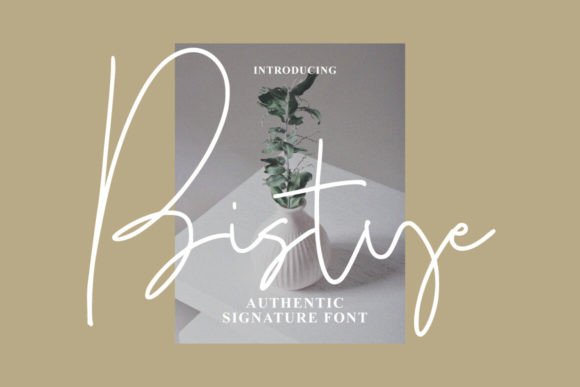
The Bistye Font: A Handmade Signature Style for Your Creative Projects
Have you ever worked on a design project, only to find yourself stuck on the perfect font? I recall a particularly frustrating experience while designing a wedding invitation suite. My client wanted a font that exuded elegance, whimsy, and a touch of handmade charm. After scouring the internet, I stumbled upon the Bistye font, and it instantly became the star of the show. In this article, we’ll dive into the world of Bistye, exploring its unique features, and how to make the most of this beautiful font.
A Personal Review: What I Love About Bistye
So, what makes Bistye so special? Here are a few things that caught my attention:
- ✨ Unique handmade signature style: Bistye boasts a one-of-a-kind, handcrafted feel that’s perfect for adding a personal touch to your designs.
- ✅ Decorative characters: The font comes with a range of decorative characters, including swashes, flourishes, and stylistic alternates.
- 💃 Dancing baseline: Bistye’s baseline has a lovely, organic feel, giving your text a sense of movement and energy.
While Bistye is an amazing font, there are a few things to keep in mind:
- ⚠️ Limited use in body text: Due to its decorative nature, Bistye is best suited for headlines, titles, and short phrases. It may not be the best choice for lengthy paragraphs.
- 🤔 Occasional kerning issues: As with any font, you may encounter some kerning issues, particularly when using the more decorative characters.
The Designer Inspiration Behind Bistye
While the true story behind Bistye’s creation may be unknown, it’s easy to imagine a designer with a passion for handwriting and lettering. Perhaps they wanted to create a font that captured the essence of a personal, handwritten signature – a font that would add a touch of warmth and personality to any design project.
- Q: Is Bistye suitable for body text?
- A: While Bistye is a beautiful font, it’s best suited for headlines, titles, and short phrases. For body text, you may want to choose a more traditional font.